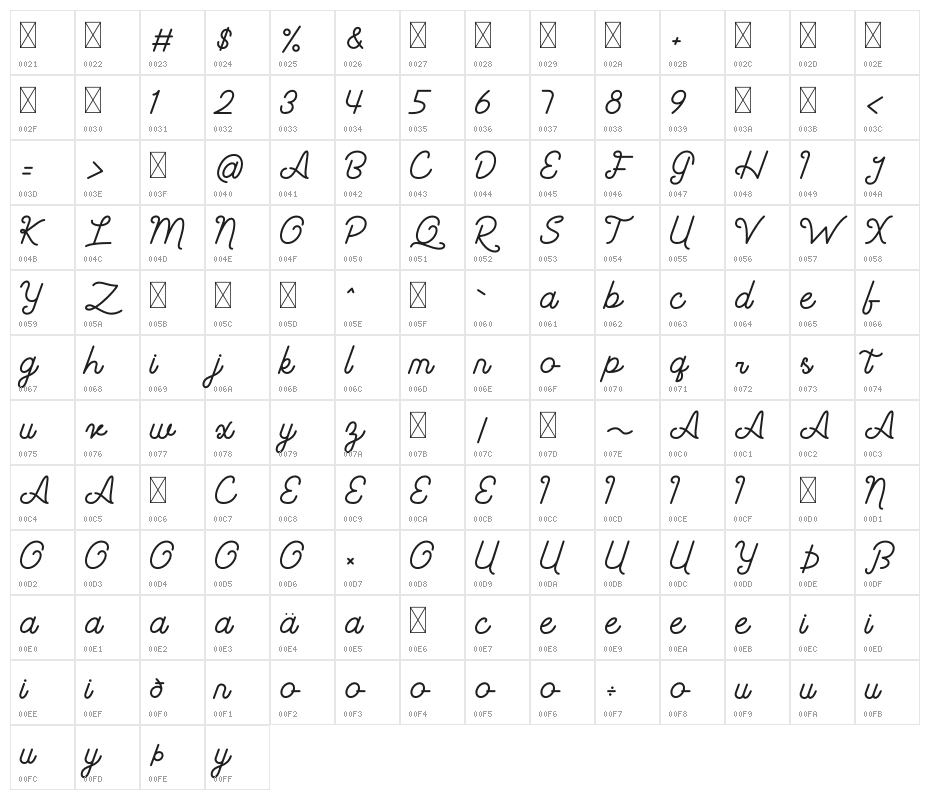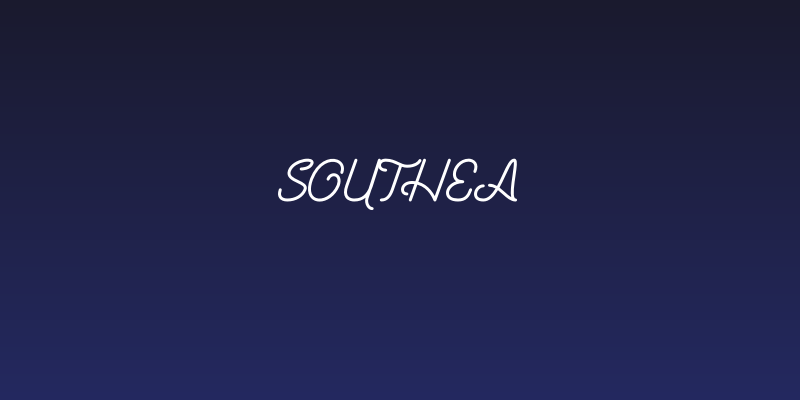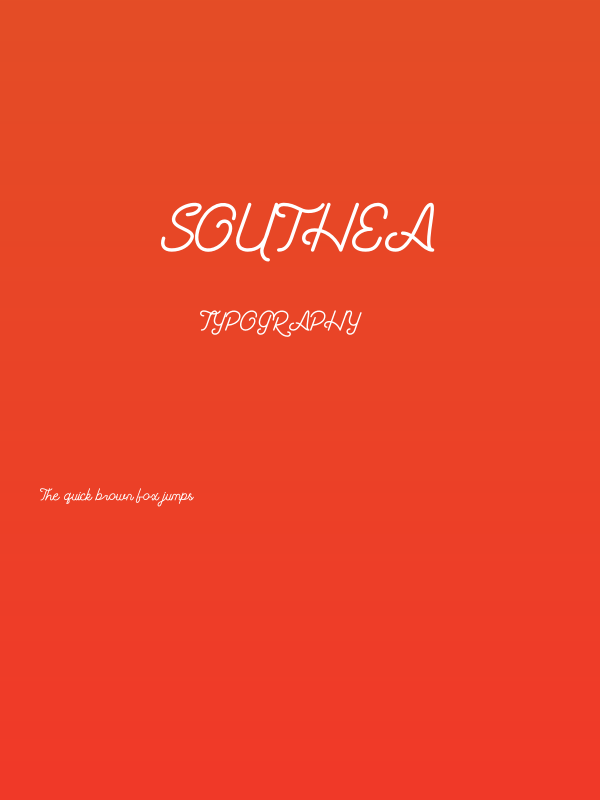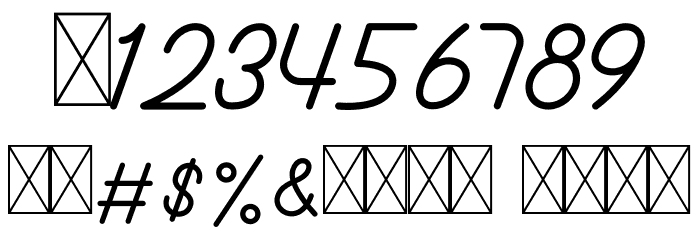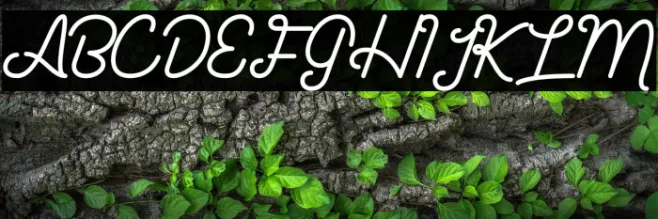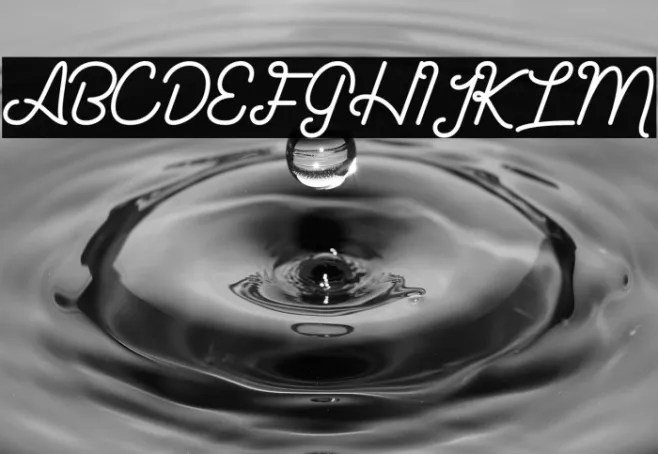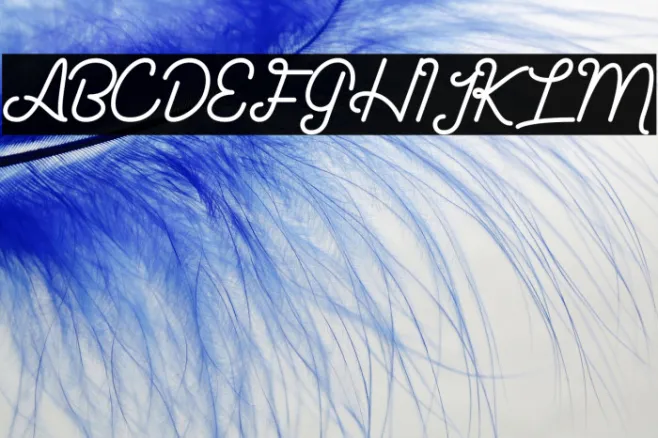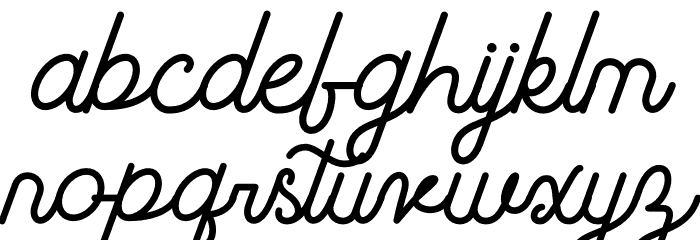
Southea Font
Southea Description
This font features a flowing, cursive style that exudes elegance and sophistication. The uppercase letters are gracefully interconnected, creating a seamless and fluid appearance. The lowercase letters maintain a consistent slant, enhancing the script-like quality. Numbers are designed with a similar flair, ensuring uniformity across all characters. Special characters are thoughtfully integrated, maintaining the overall aesthetic. The font's design is both classic and modern, making it versatile for various applications. Its smooth curves and balanced proportions make it ideal for projects requiring a touch of refinement and style.
| Proposed Projects | Ideal for wedding invitations, elegant branding, personal stationery, and decorative signage. |